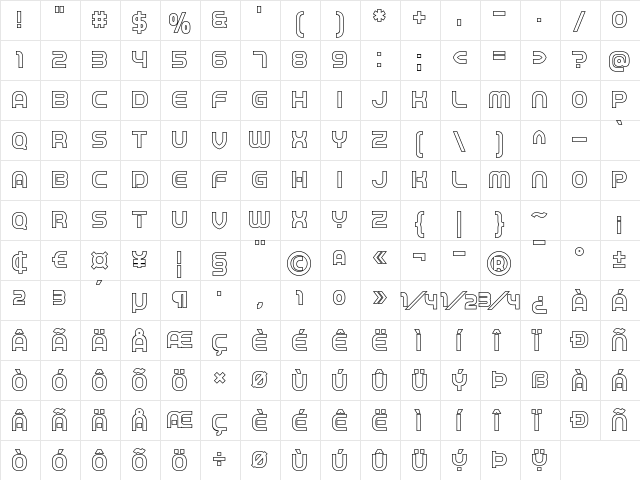
Game Played Outline Regular
Design Context for Game Played Outline Typeface
Game Played Outline is built around its visual character rather than neutral utility — its distinctive forms are designed to make an impression at display sizes.
Font Pairing: Pair with a clean neutral sans-serif for body copy to let Game Played Outline's character lead without overwhelming the composition.
Pro Tip: Use Game Played Outline exclusively at display sizes — it was designed to be seen, not read at length. Let a neutral companion handle body copy.